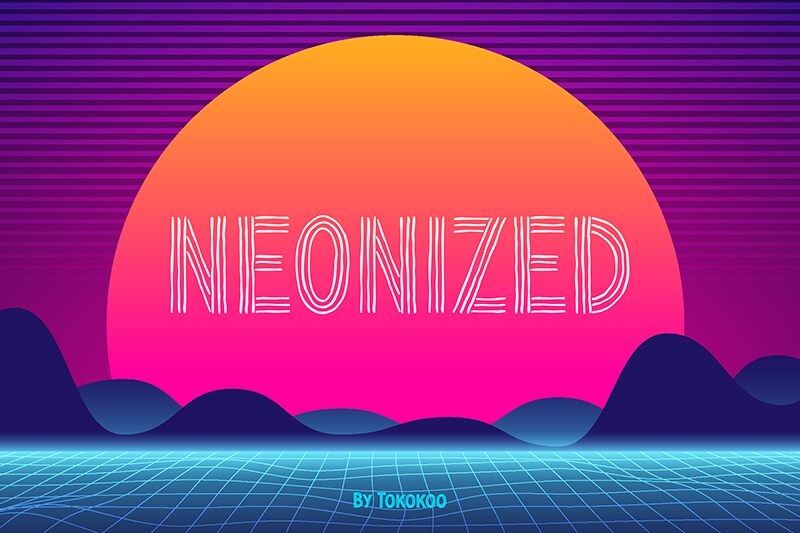
NEONIZED
Neonized is a bold, geometric display font offered by Tokokoo Studio. The font features straight lines that are either parallel or meet at sharp angles; it was designed for retro headlines and titles, and looks awesome on posters, logos, album covers, labels and branding projects with a vintage and futuristic vibe.